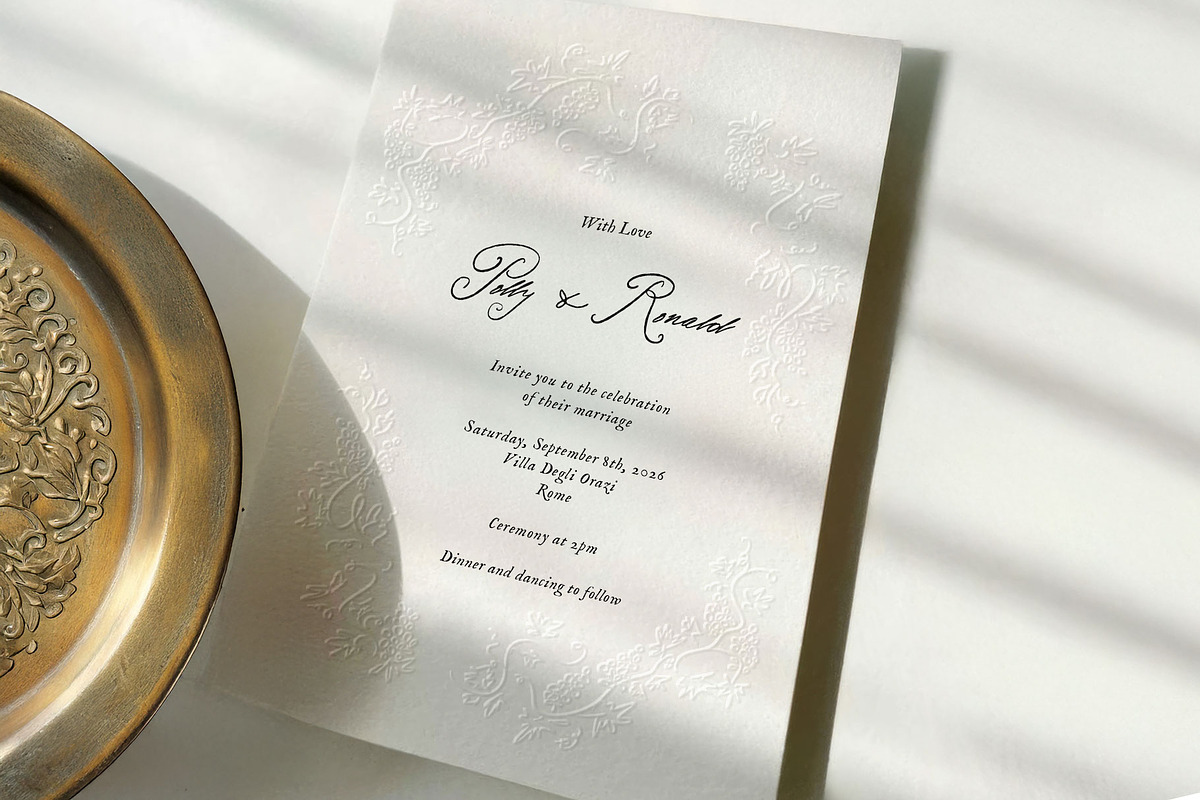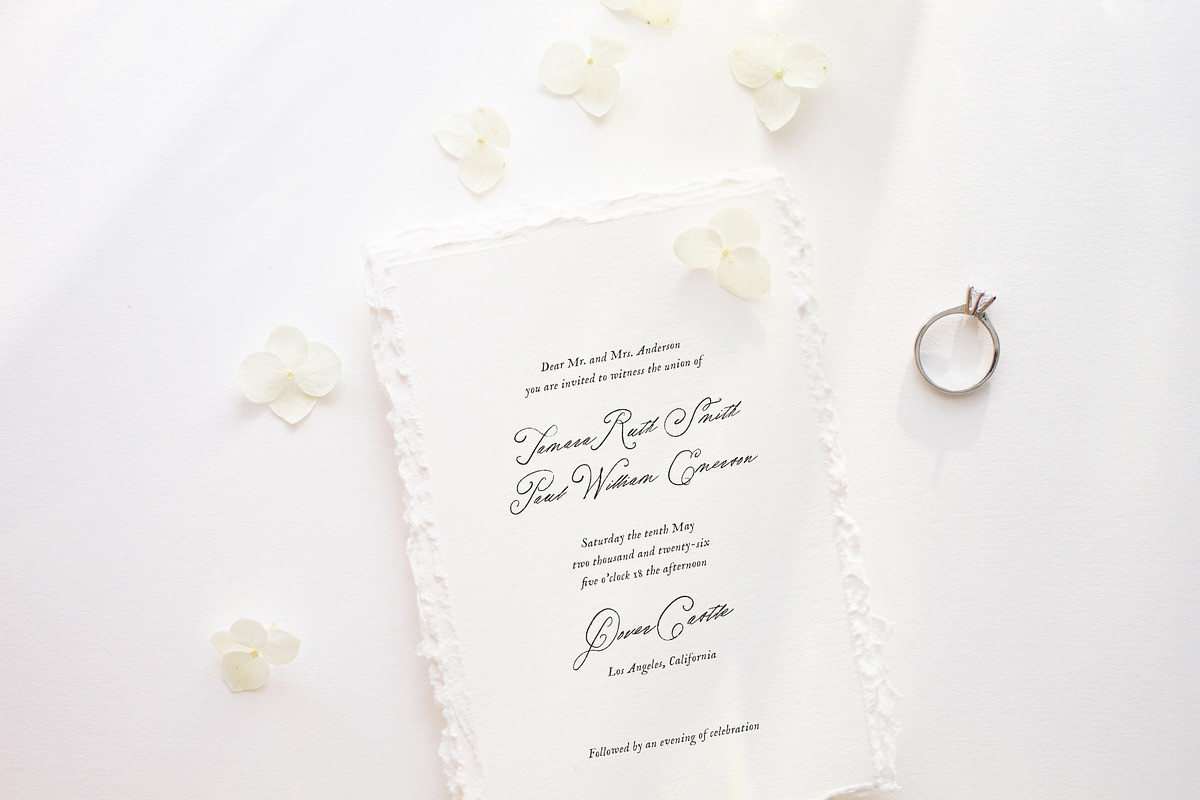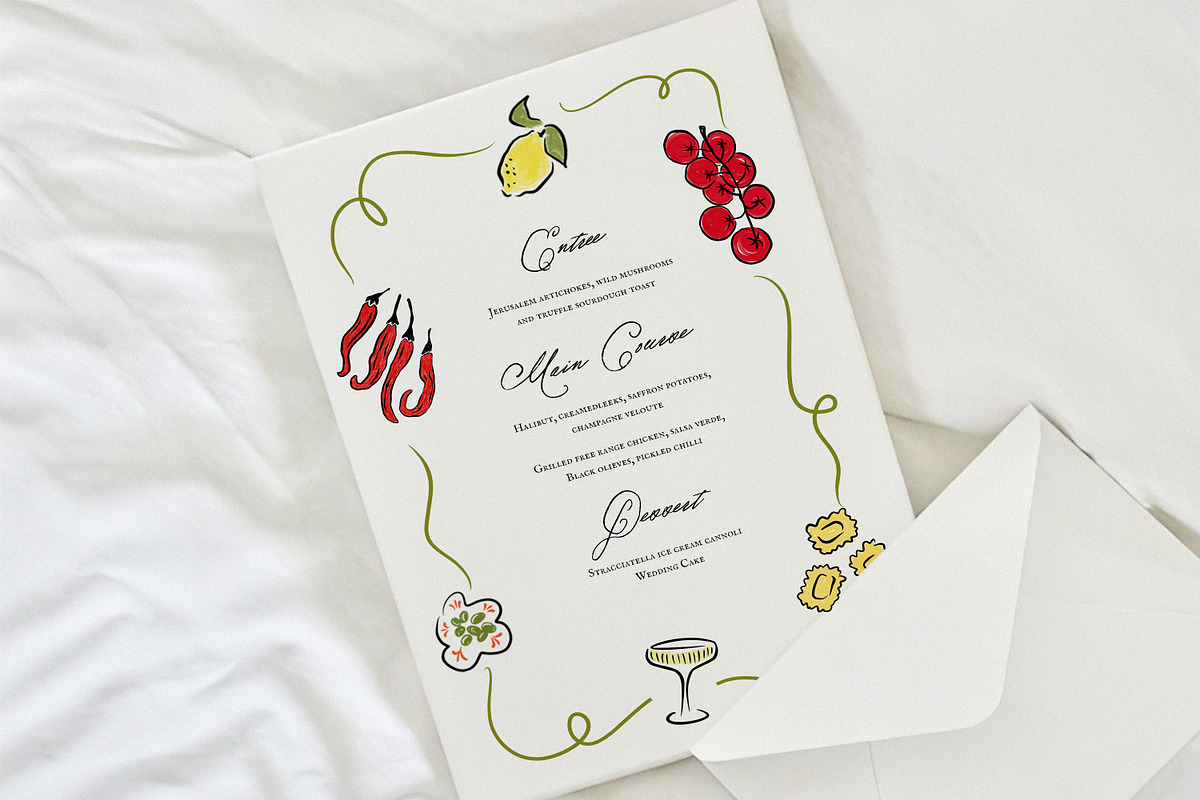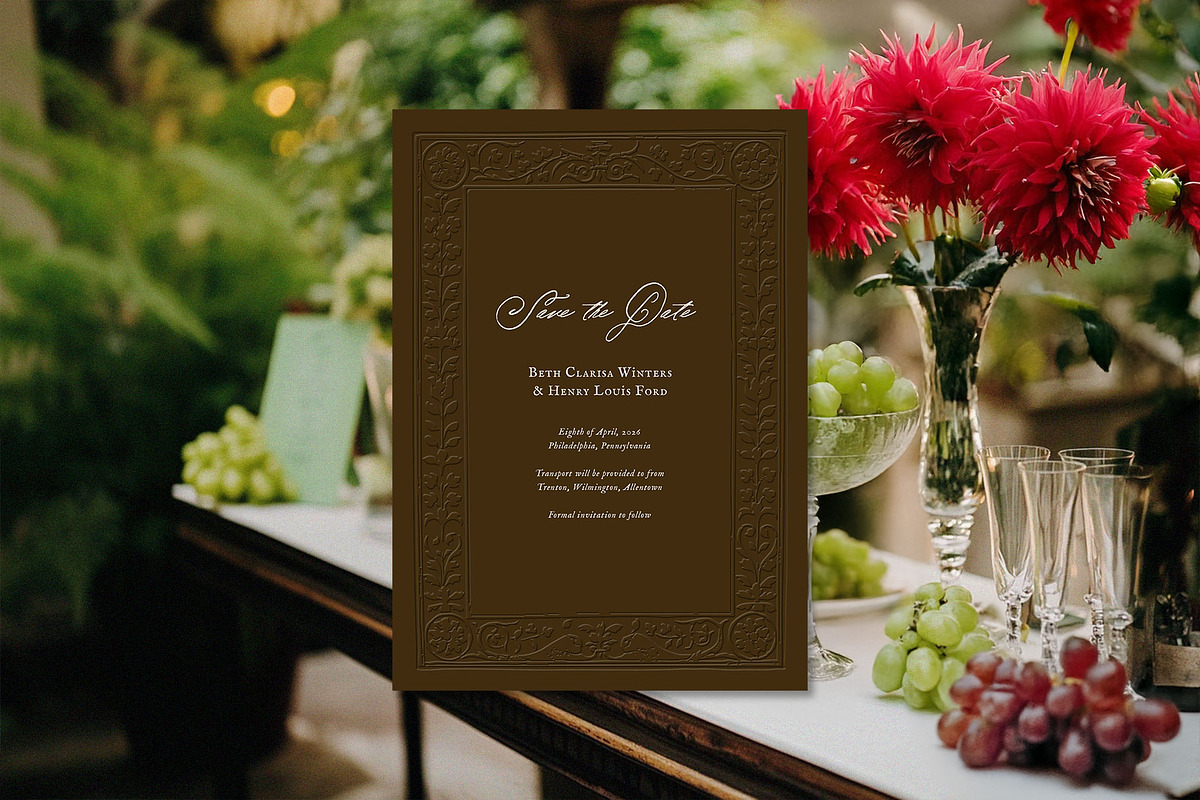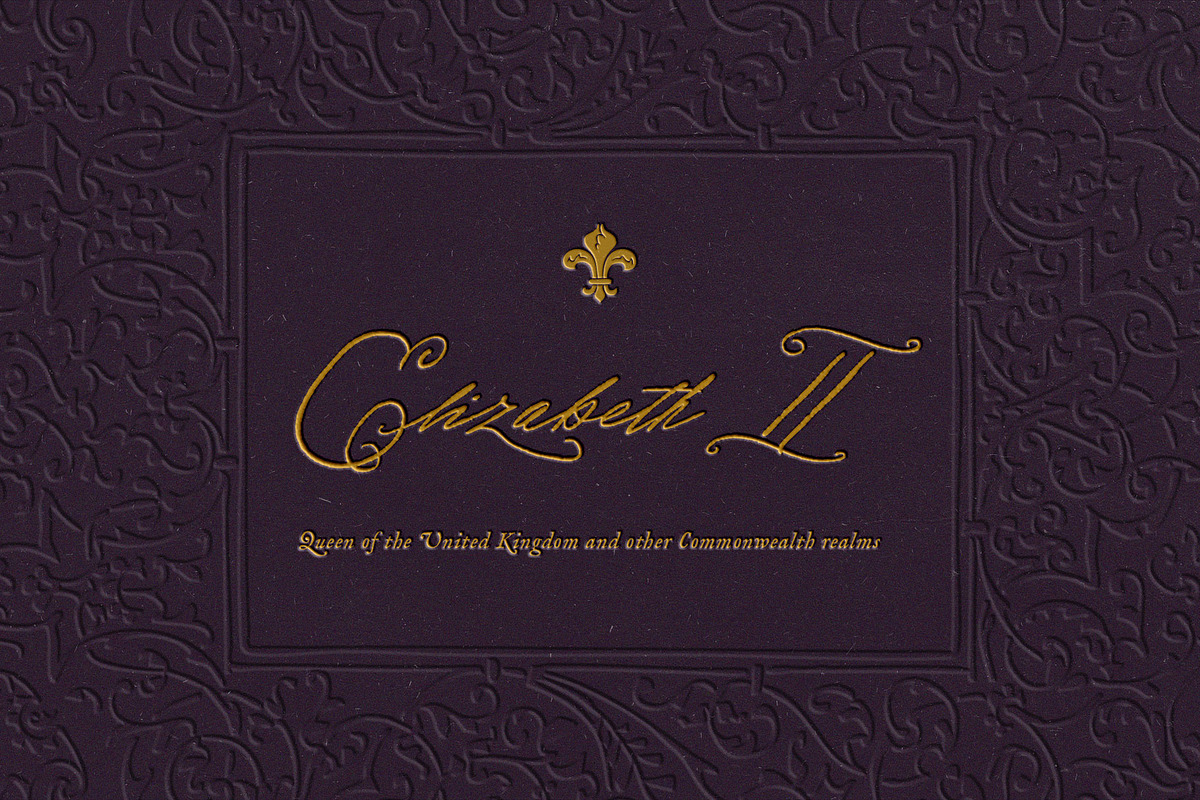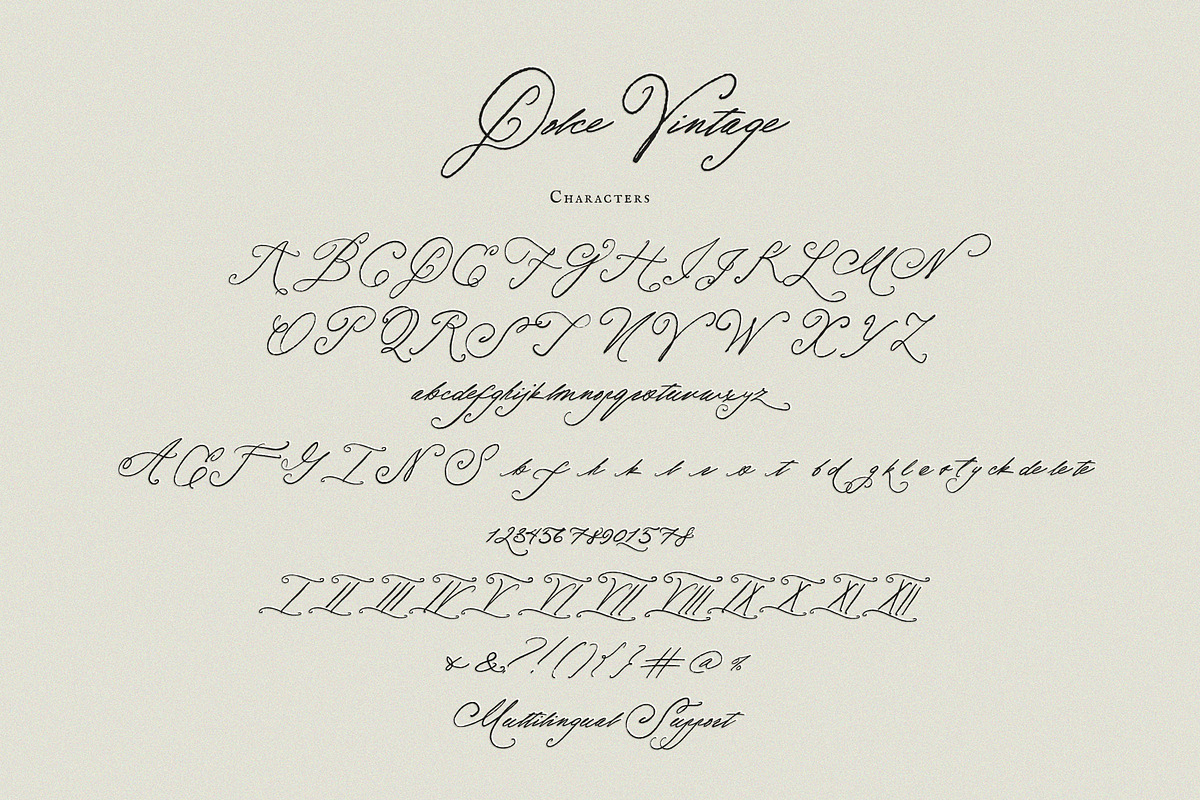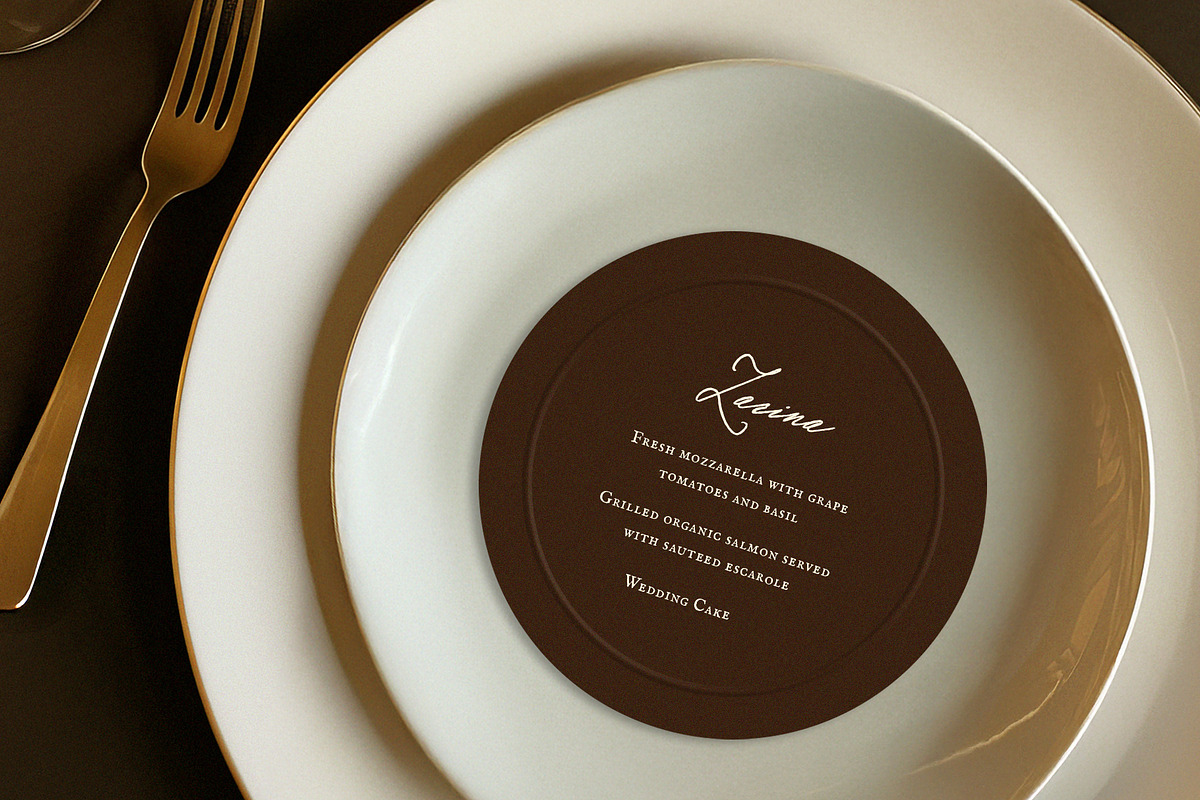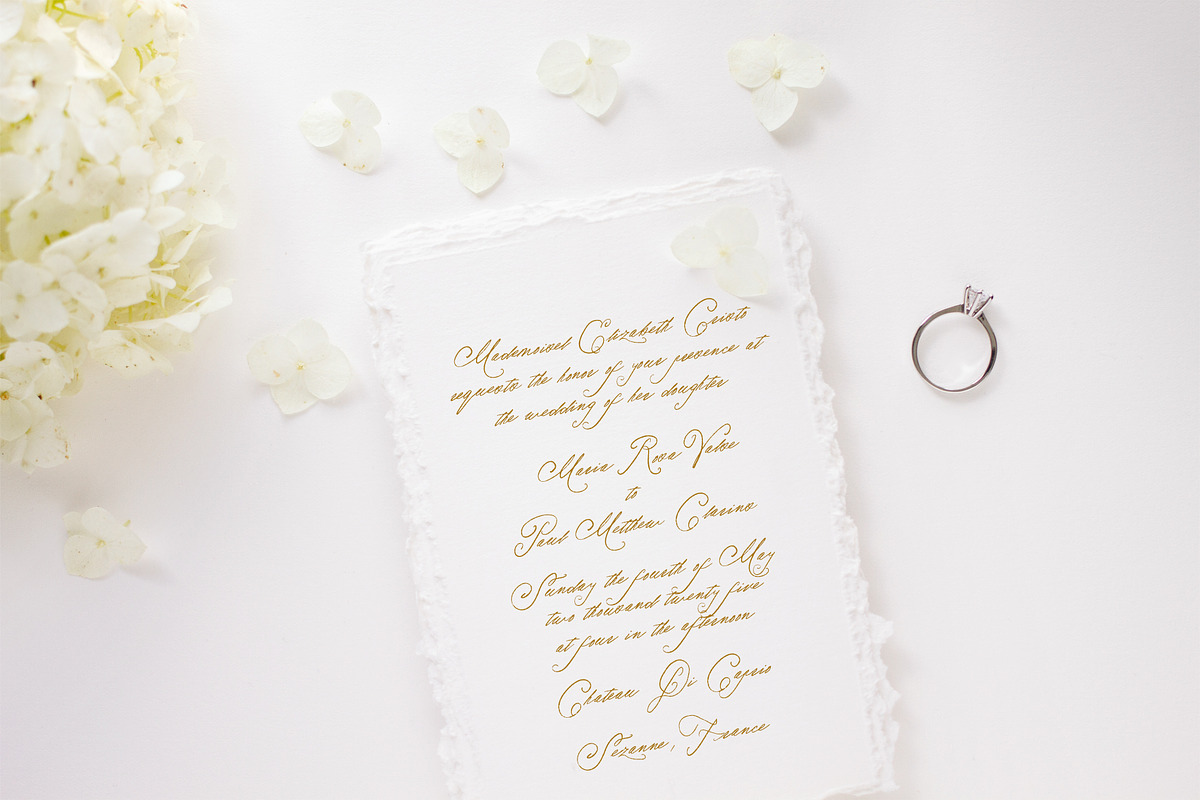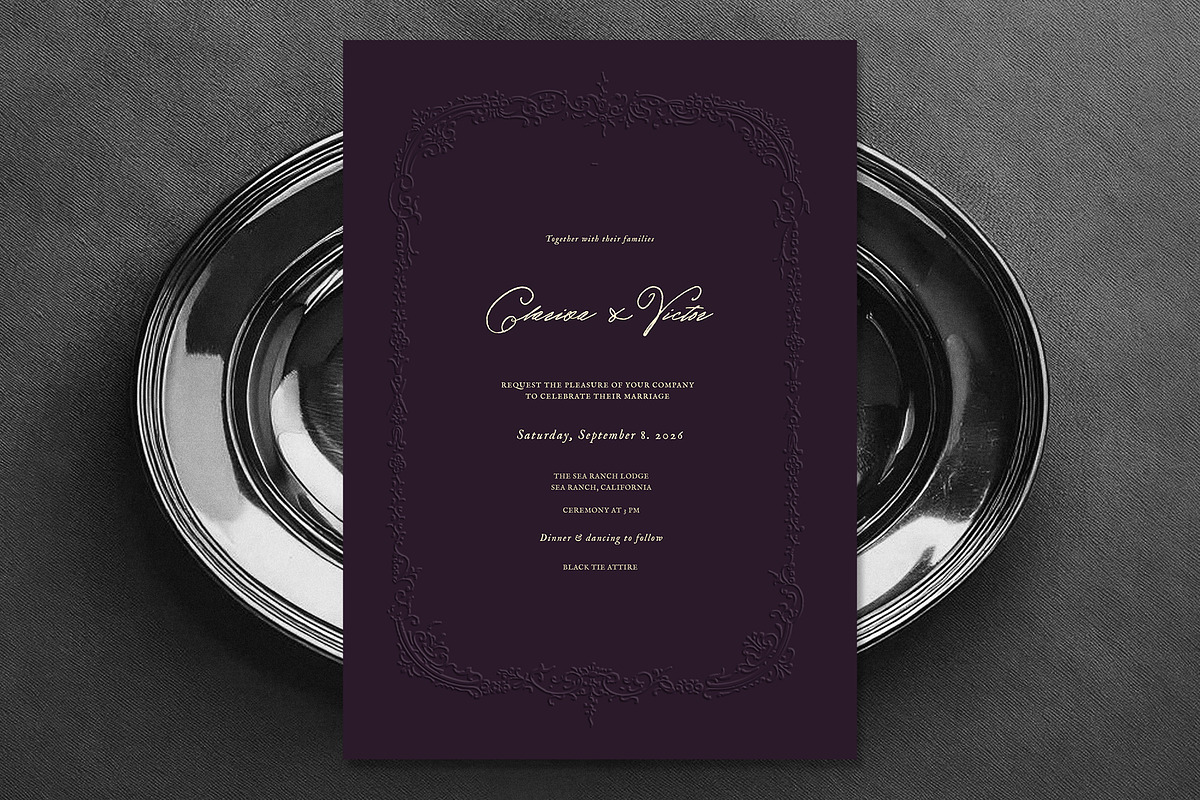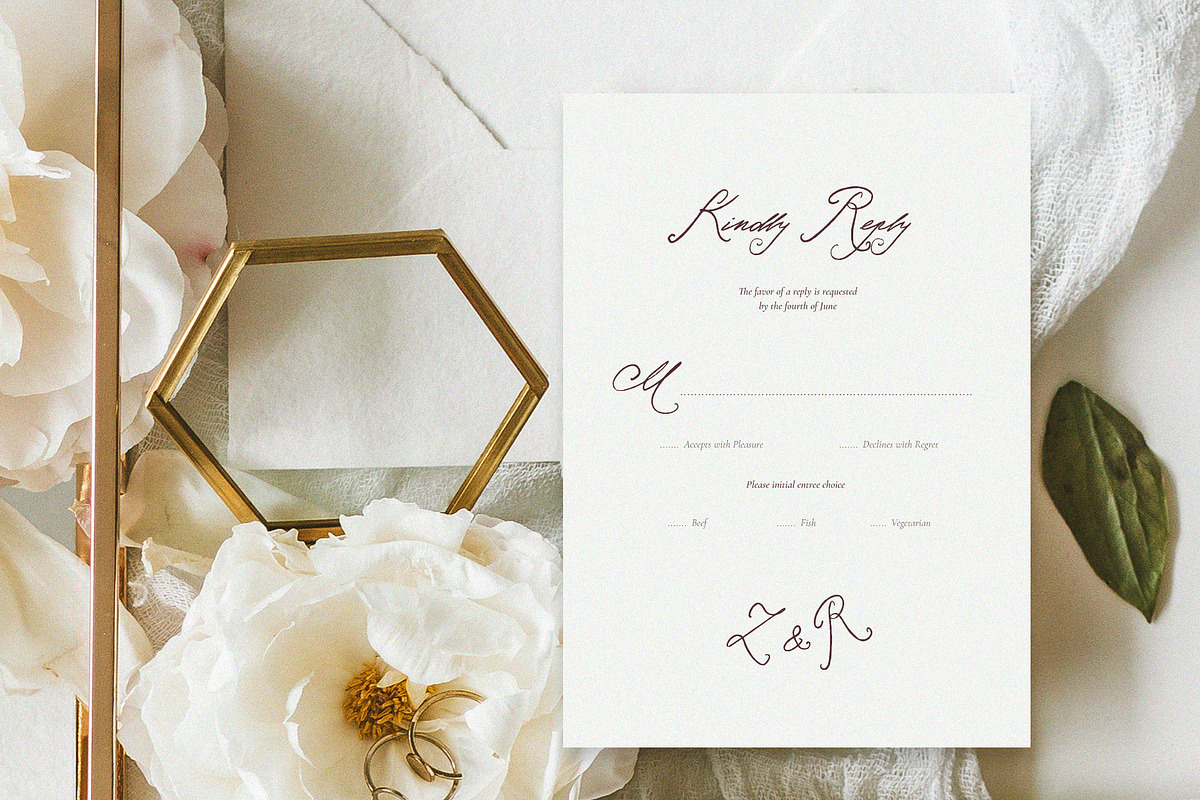
Dolce Vintage| Handwritten Font
Dolce Vintage is a calligraphic font with beautifully textured, torn edges — crafted with a real pen for an authentic handwritten feel. It carries a touch of vintage charm while remaining effortlessly modern. Perfect for elegant wedding invitations, stationery, and timeless designs.